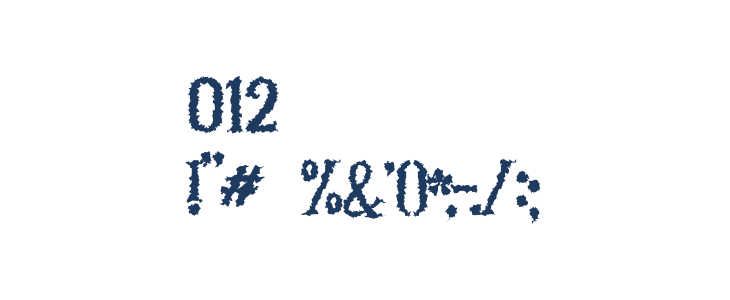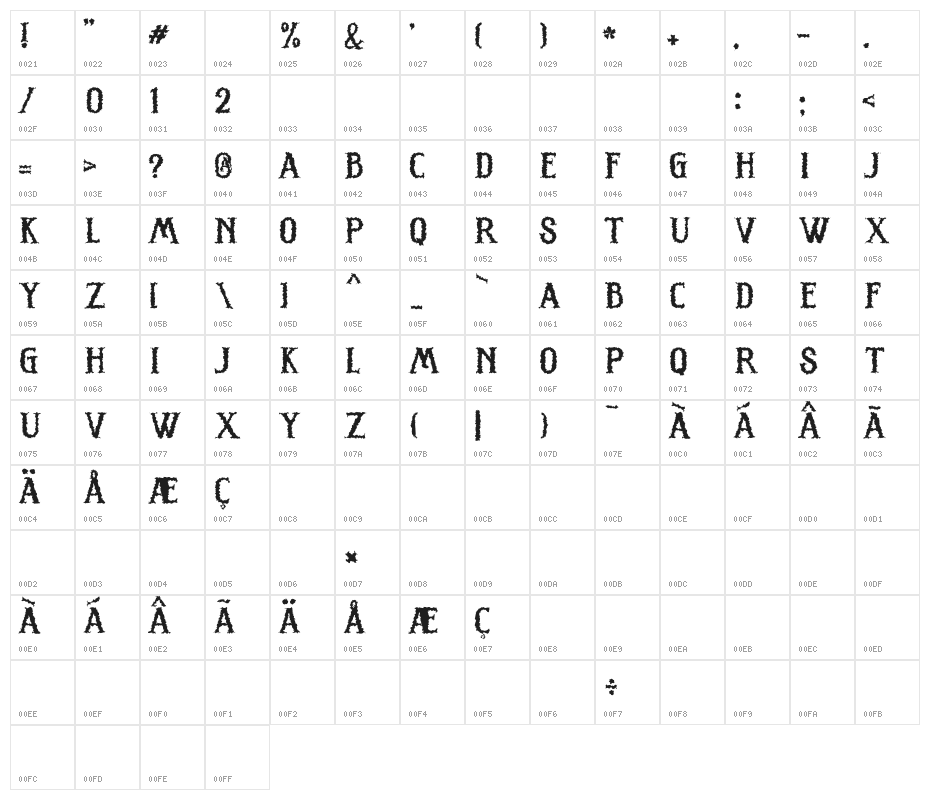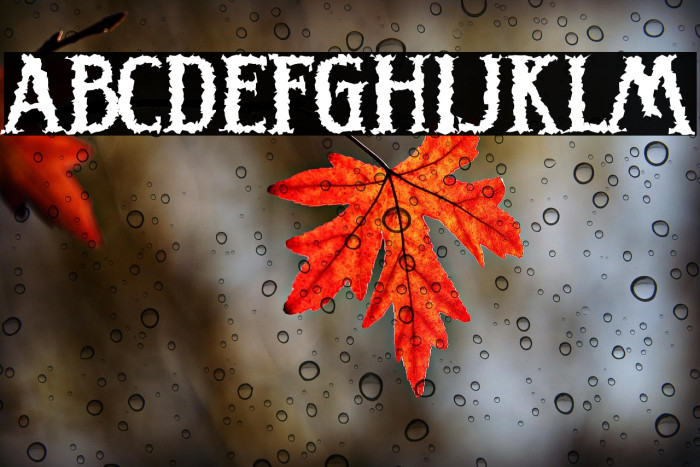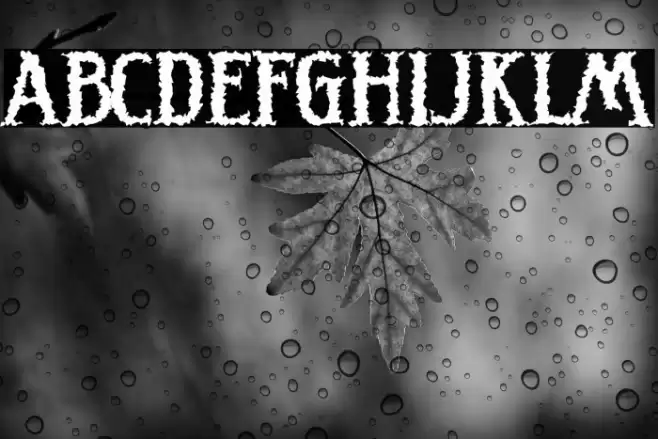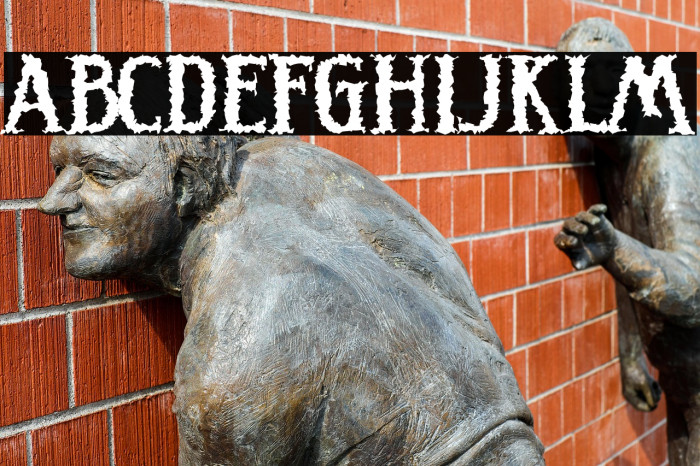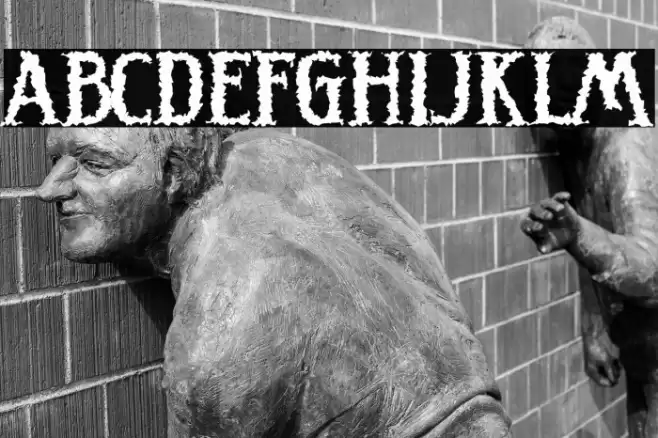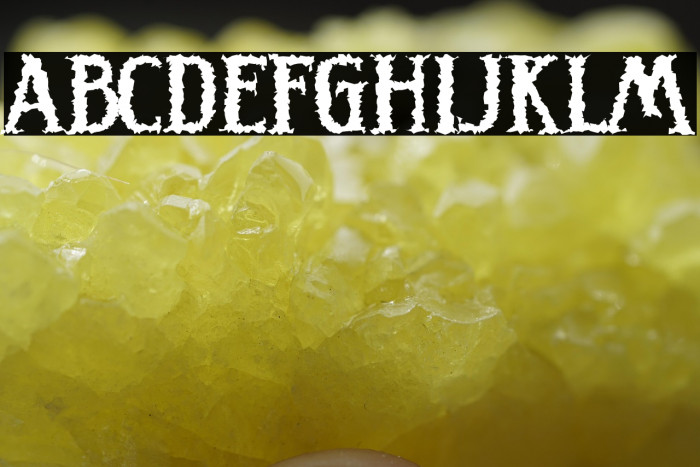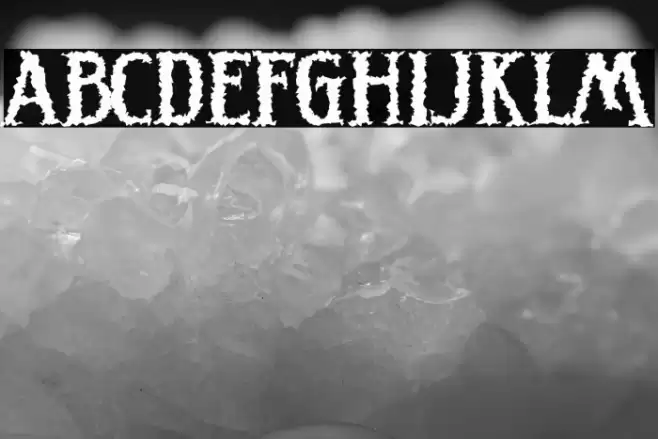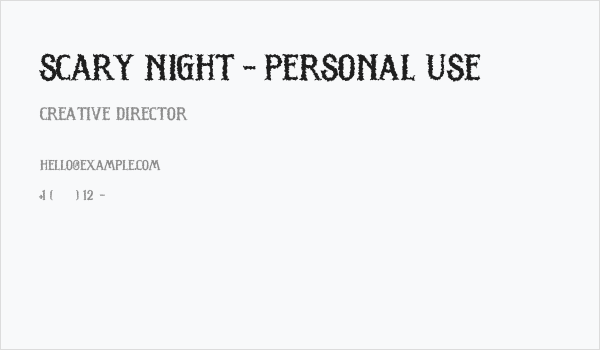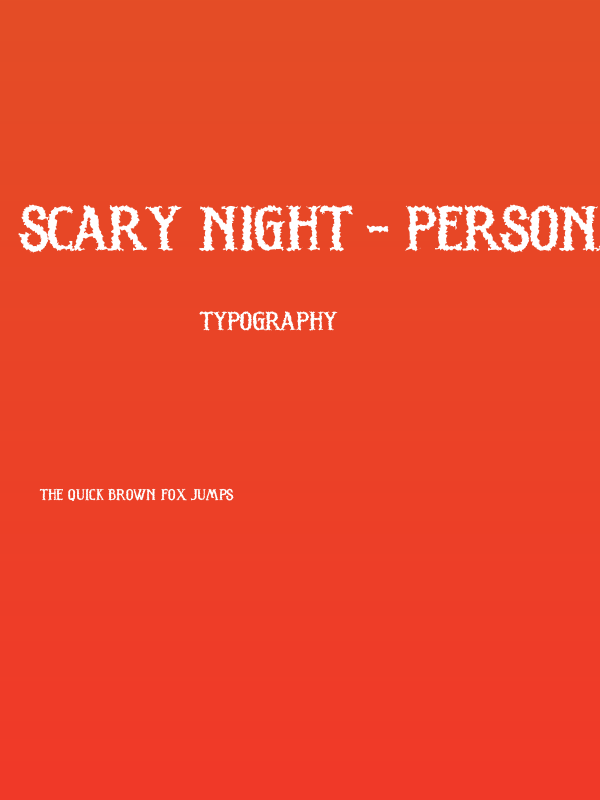
SCARY NIGHT - Personal Use Font
SCARY NIGHT - Personal Use Description
This font features a jagged, distressed appearance that evokes a sense of horror and unease. The characters are irregularly shaped, with rough edges that suggest a torn or decayed texture. This style is reminiscent of classic horror movie posters or Halloween-themed designs. The uppercase and lowercase letters maintain a consistent height, while the numbers and special characters follow the same unsettling aesthetic. The font's unique design makes it stand out, perfect for creating an eerie atmosphere in any project.
| Proposed Projects | Perfect for Halloween invitations, horror movie posters, haunted house flyers, and spooky-themed merchandise. |